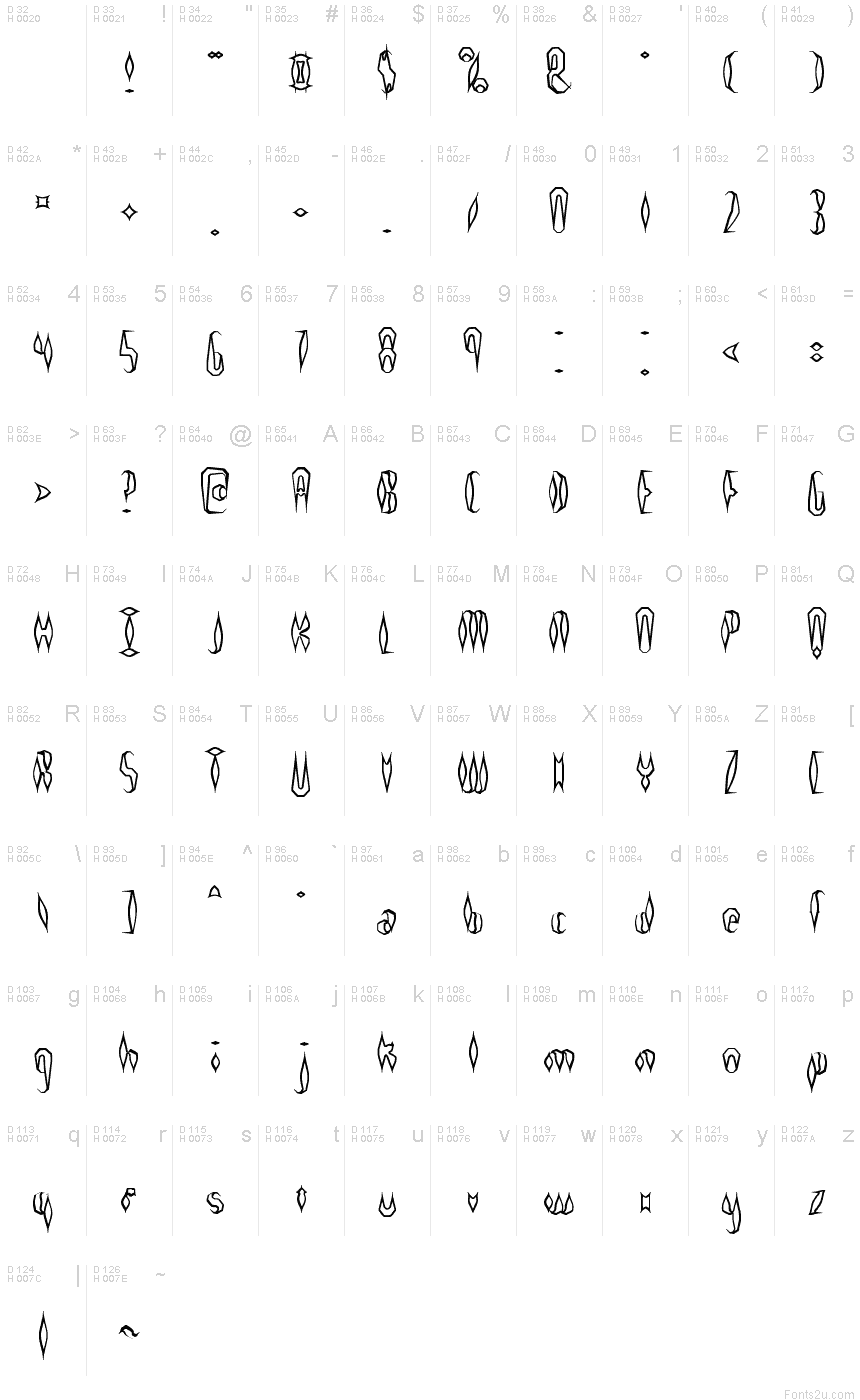
Quill Experimental O -BRK-
Quill Experimental O, a free modern Gothic font by AEnigma Fonts, turns the alphabet into narrow quill-drawn shapes with sharp peaks and diamond points. The letters feel ritual and calligraphic at once, with open outlined strokes and repeated spear-tip details that give the set a stark, heraldic rhythm.
This free font fits projects that need a medieval or occult edge - book covers, band logos, poster titles, packaging marks, and monograms all make sense here. It works best in short settings where those elongated, blade-like forms can carry the mood on their own, especially for title cards and cover lines that want something emblematic rather than neutral.